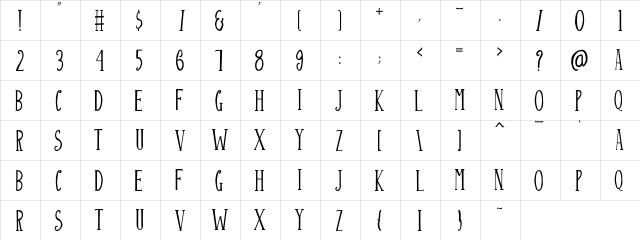
Aagaz Regular
| Designer | Ahsan |
Design Context for Aagaz Typeface
Aagaz offers clean, dependable letterforms without strong stylistic allegiance, making it a practical choice for designers who need flexibility.